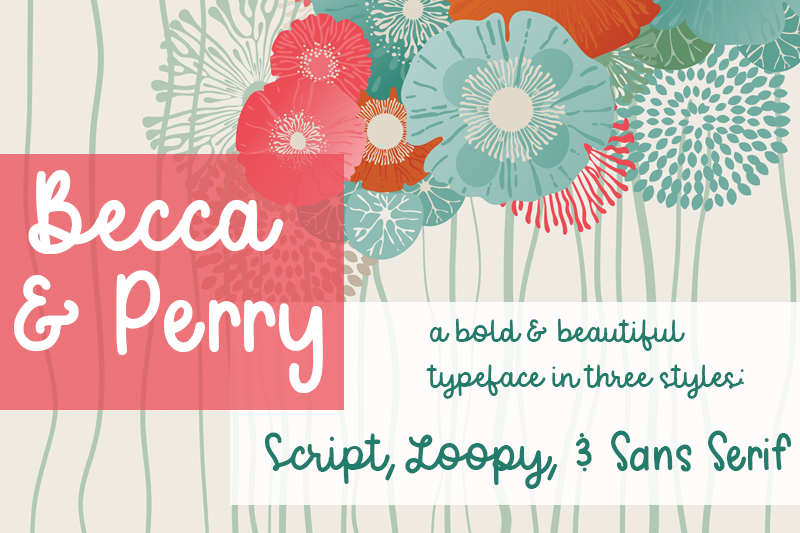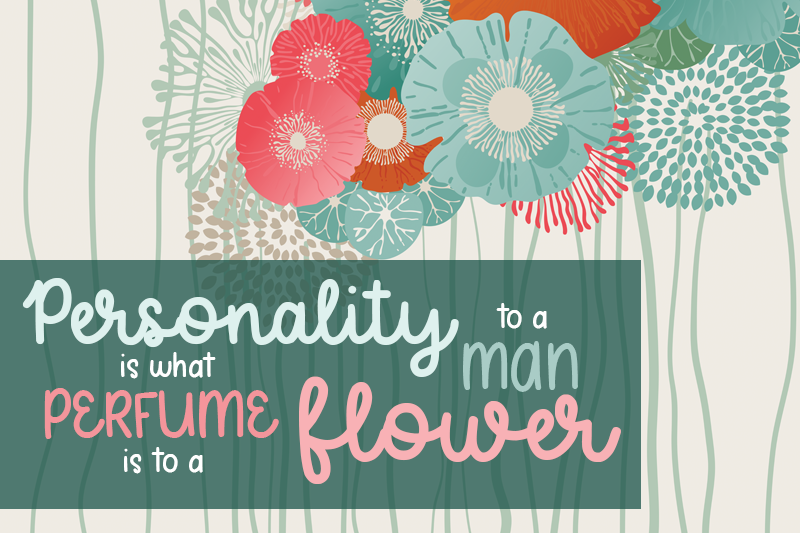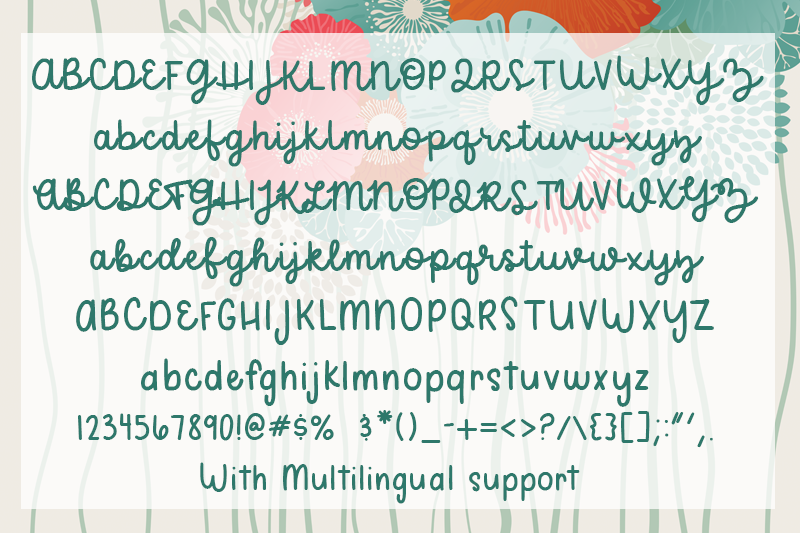
Becca & Perry Script Font
Becca & Perry is a one stop font family with two script fonts and one sans font. These three pair lovely together for all your designing needs! This typeface has three styles: Script, Loopy, and Sans, and you can use this font for all sorts of thingsThis font is partial and free for personal use.